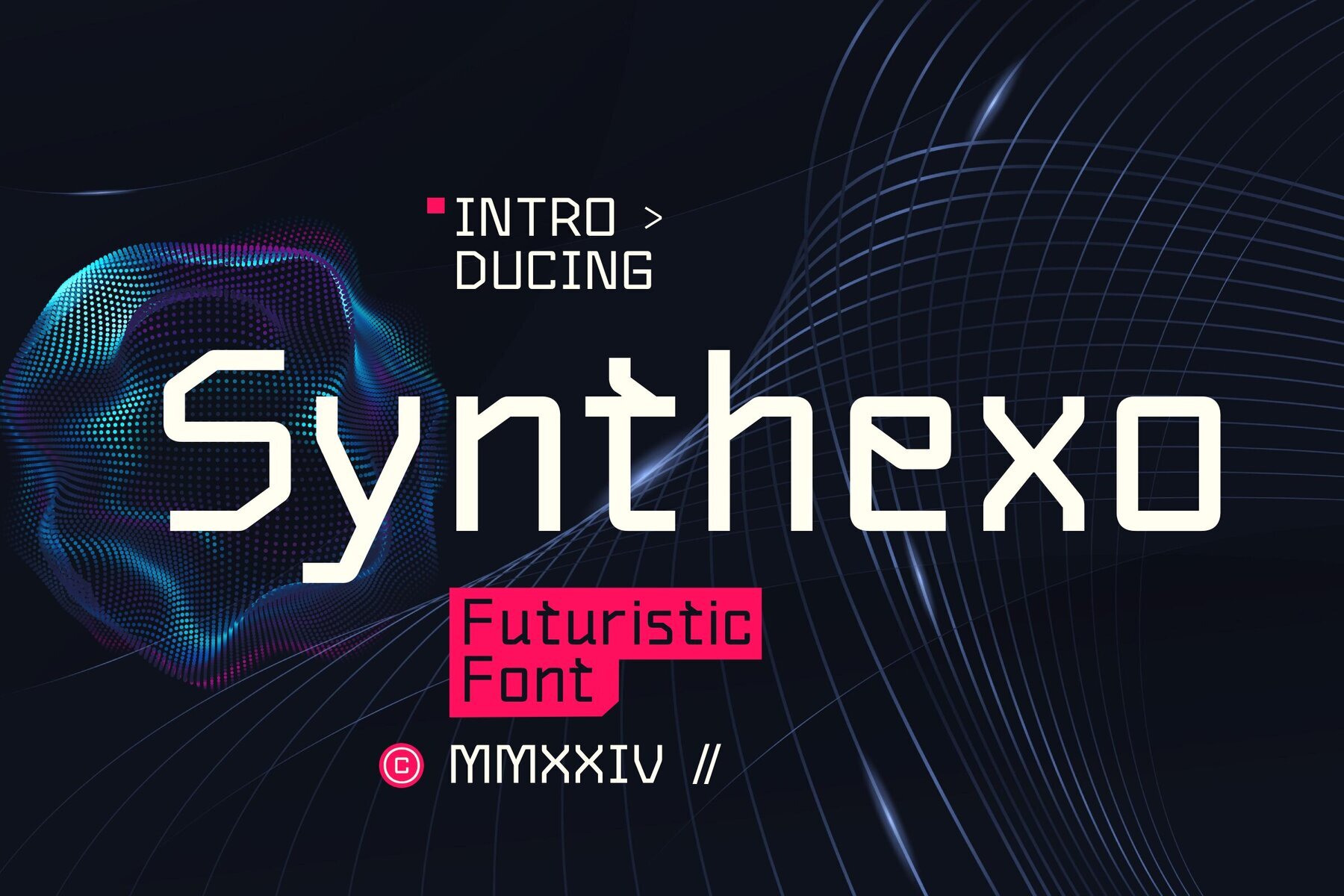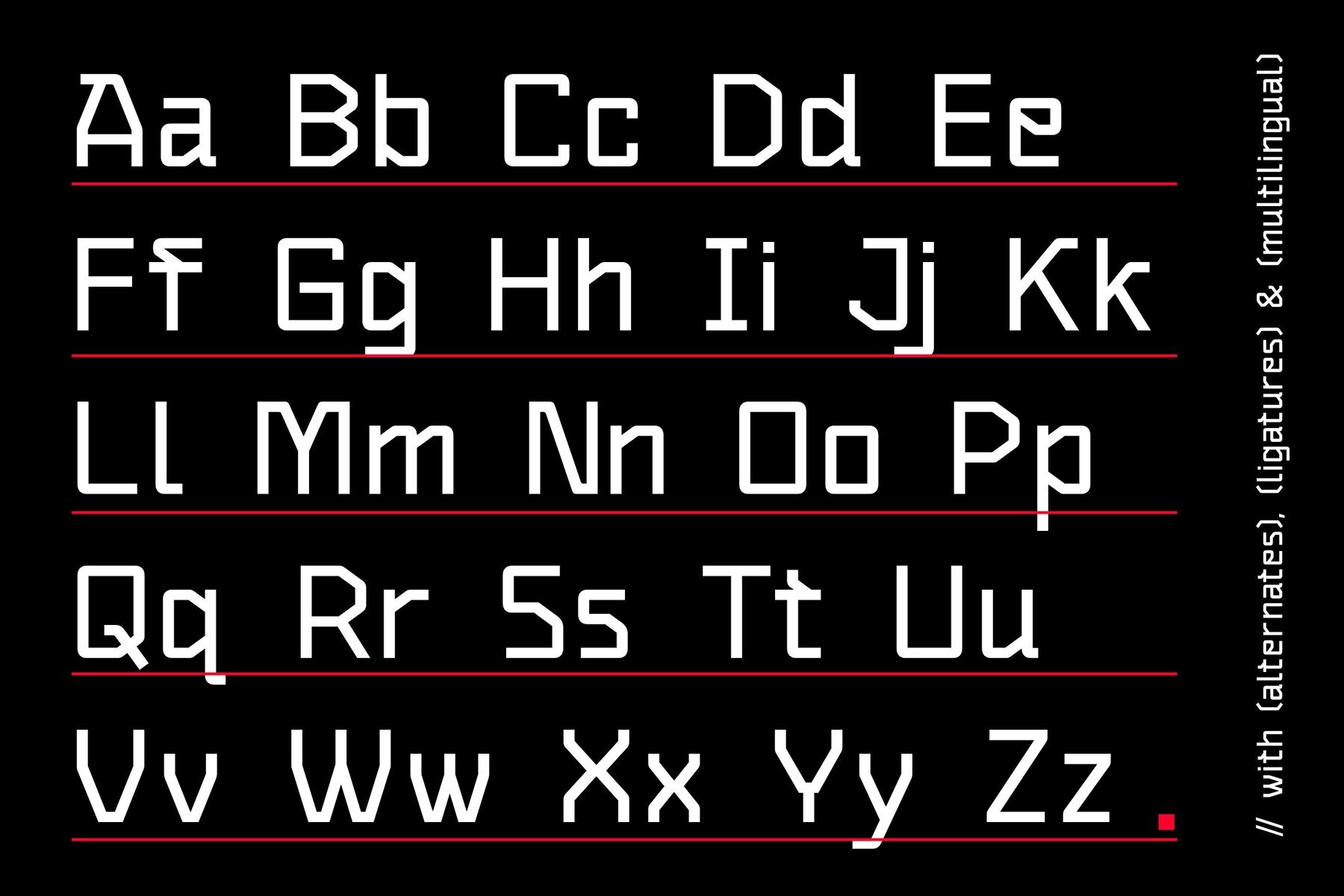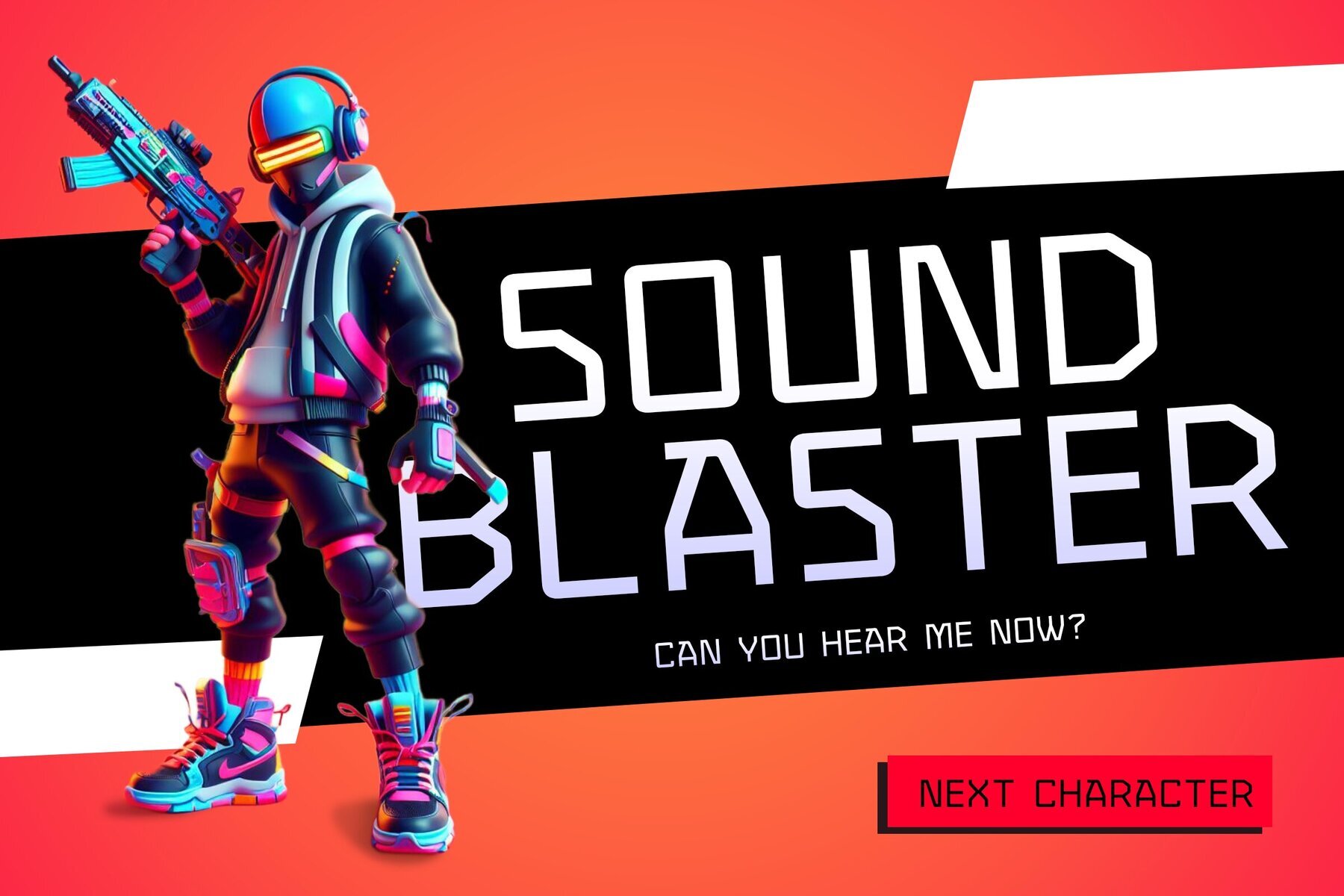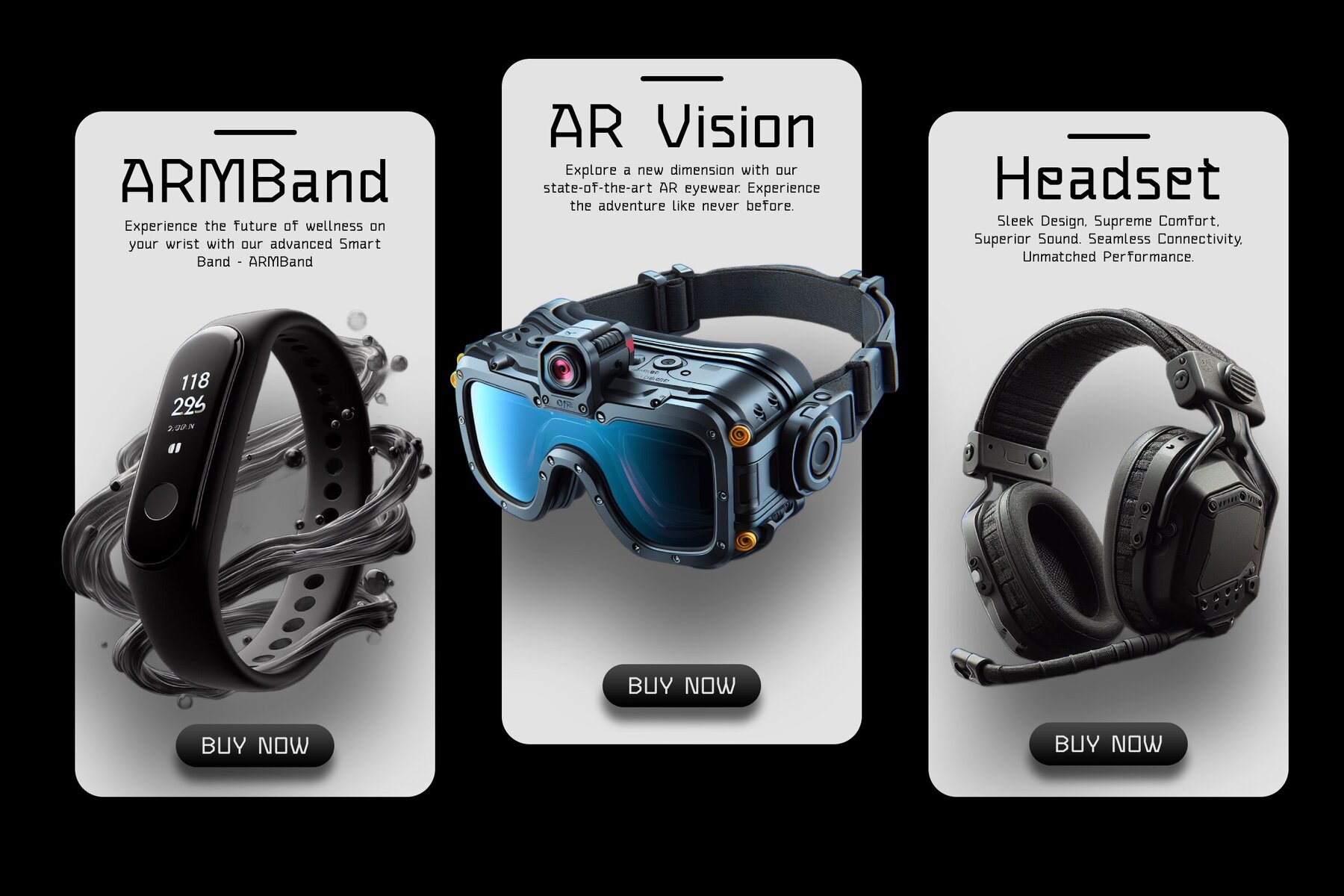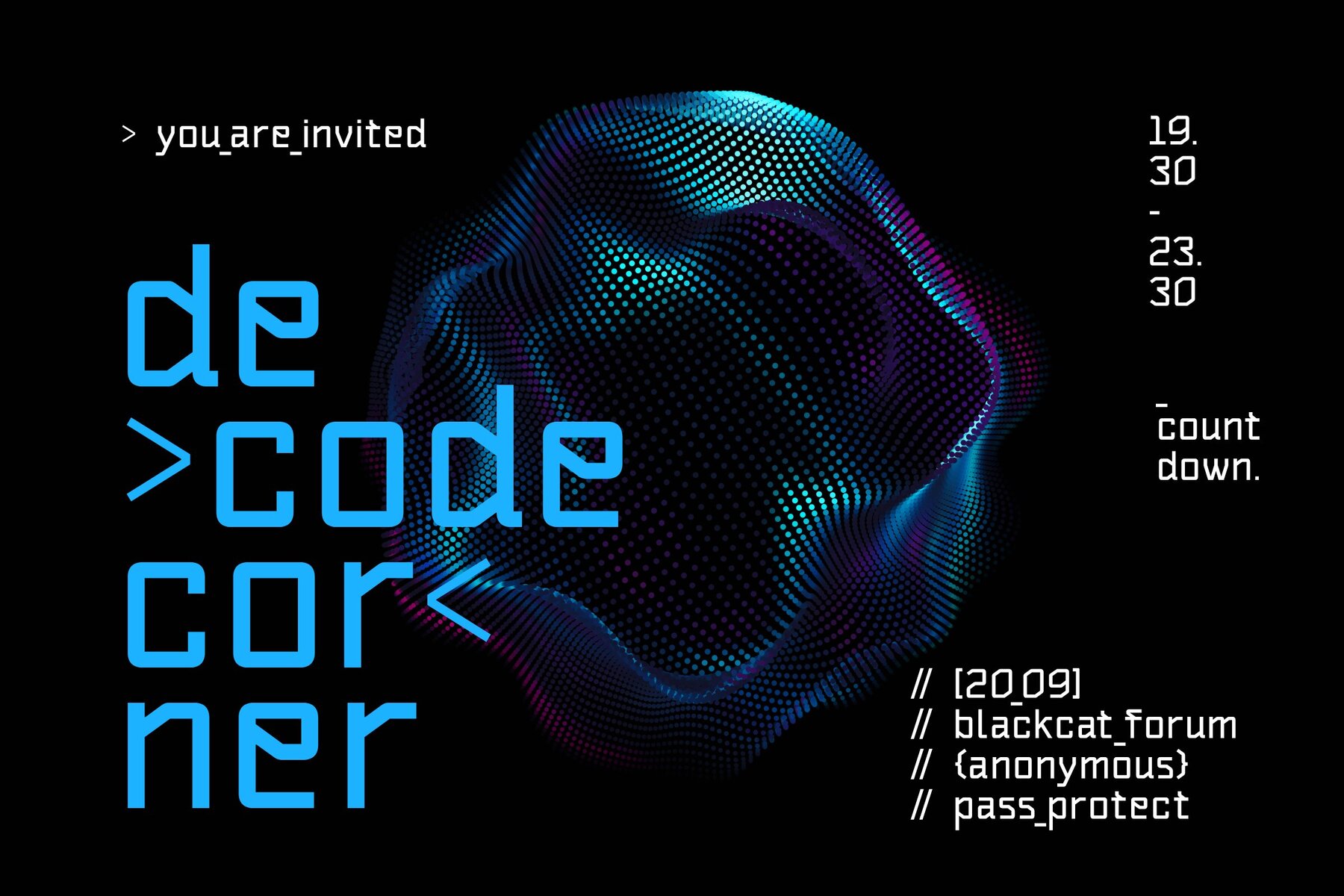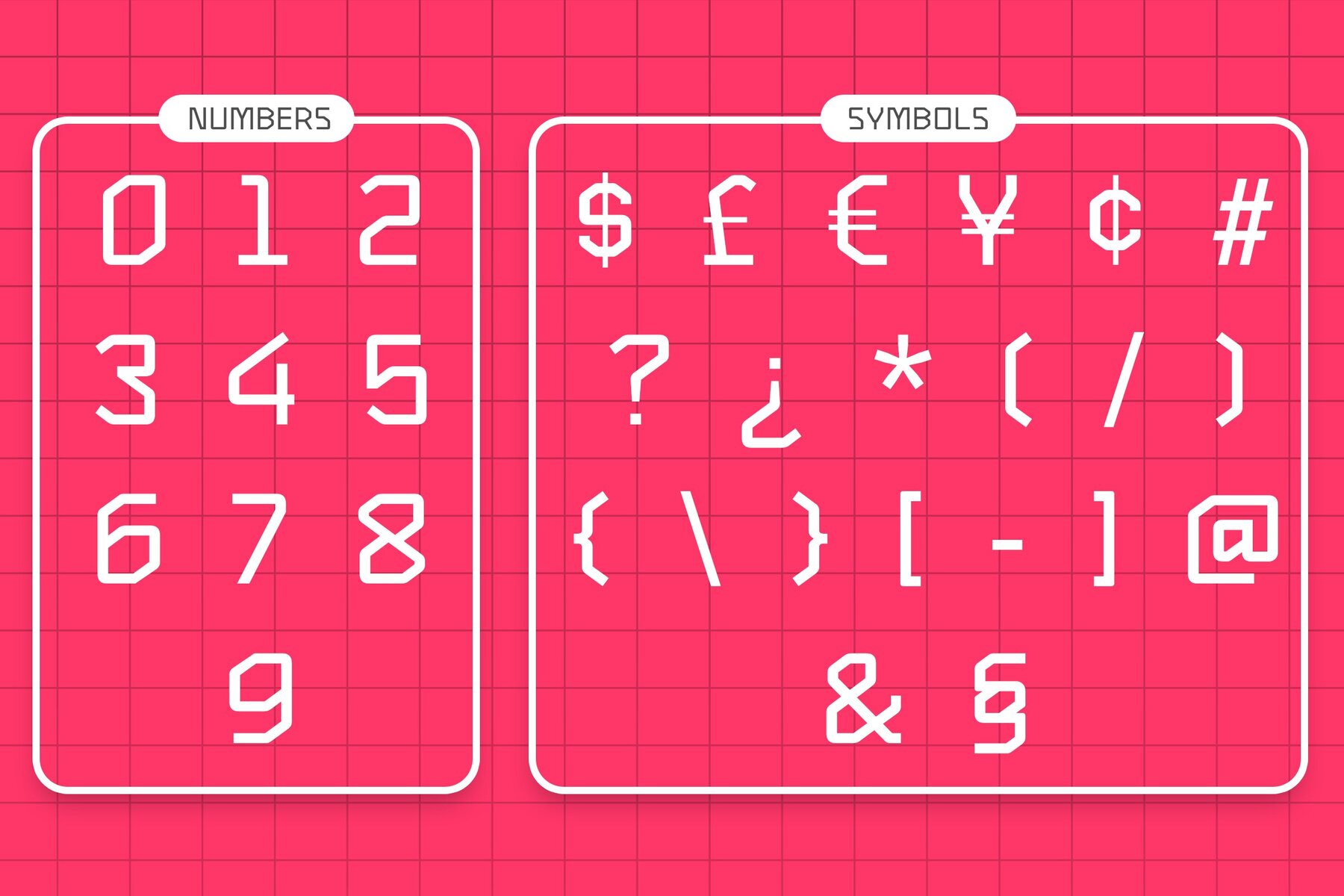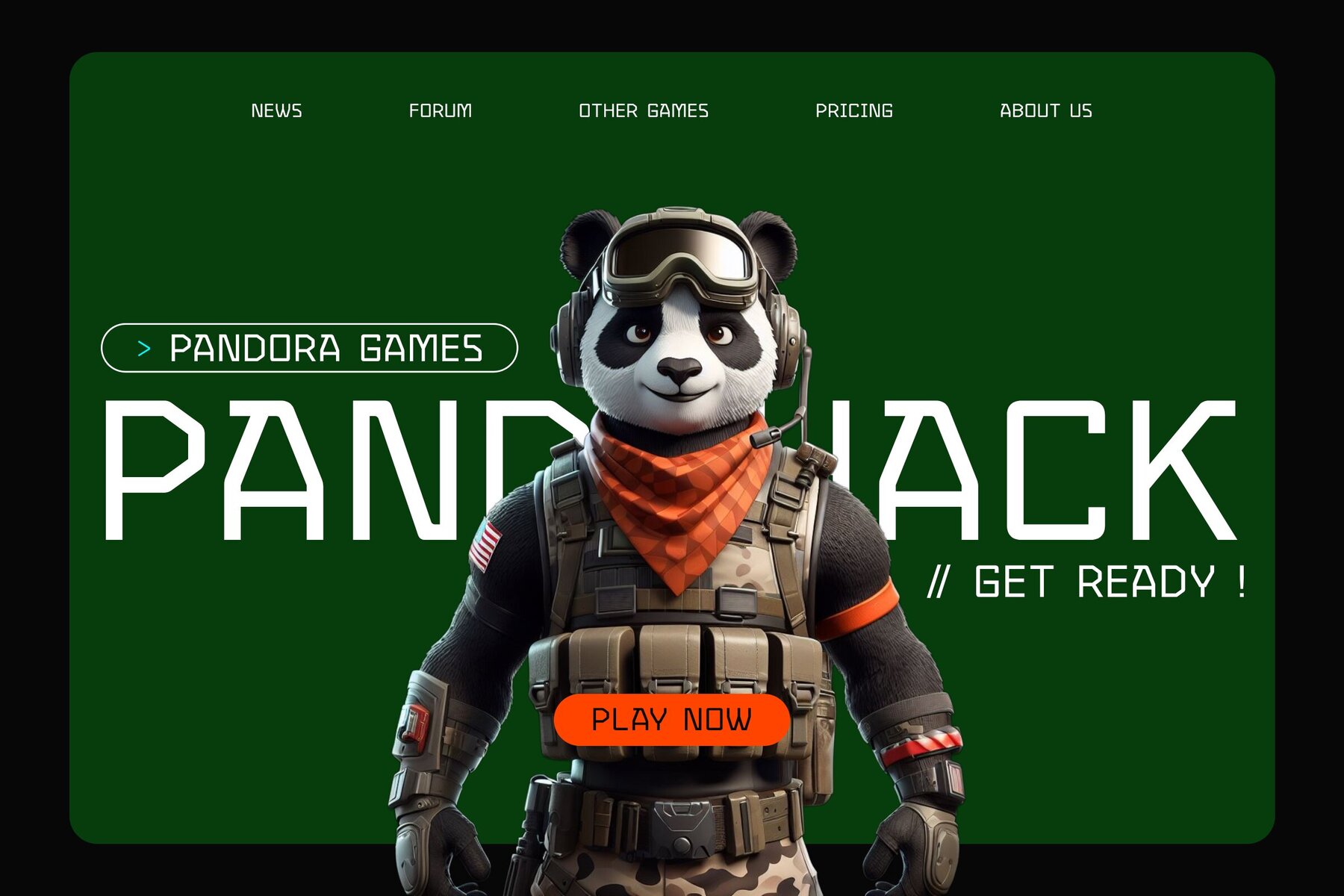
Synthexo Font
Synthexo Regular
Synthexo is an angular style sans serif typeface with futuristic technology inspirations. This typeface is perfect for designs themed around future tech, crypto & gaming.